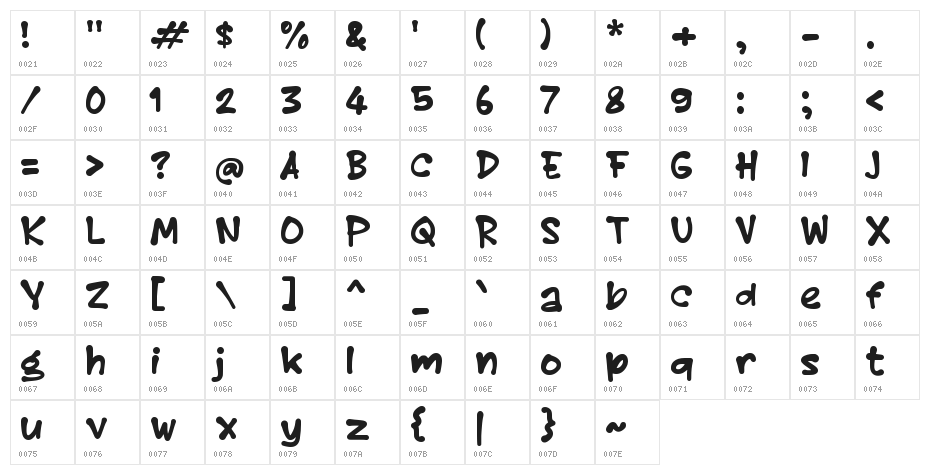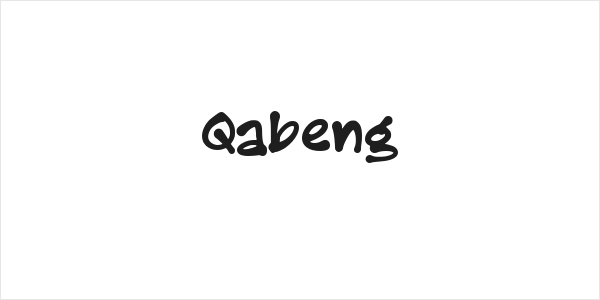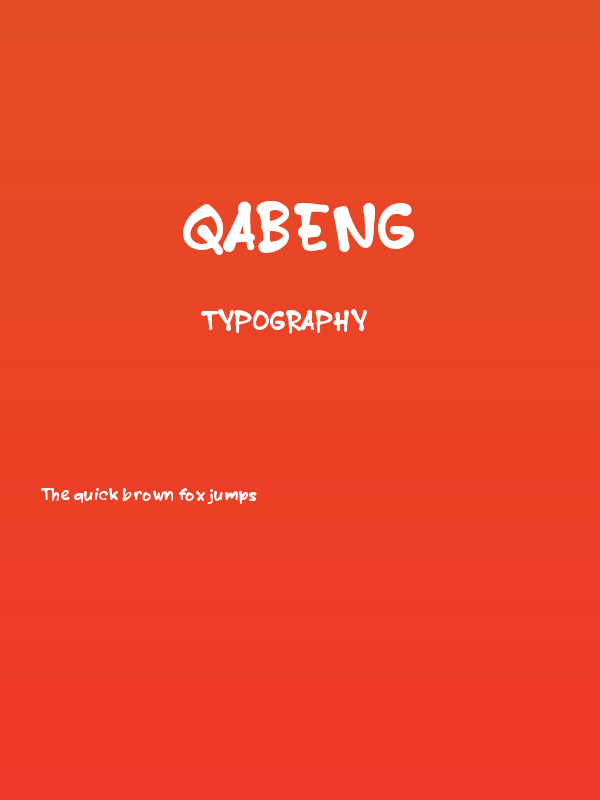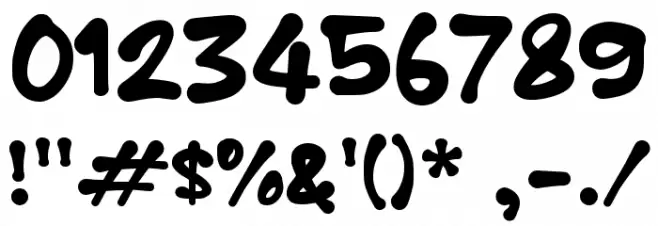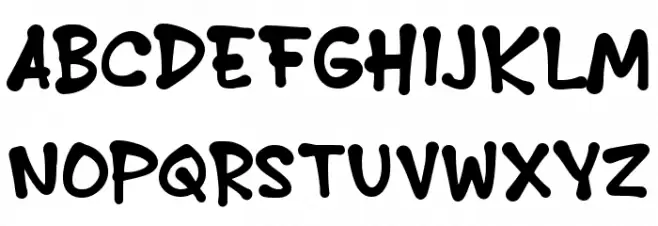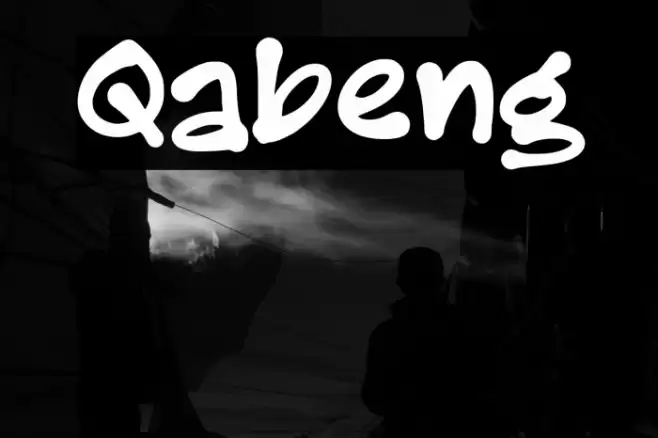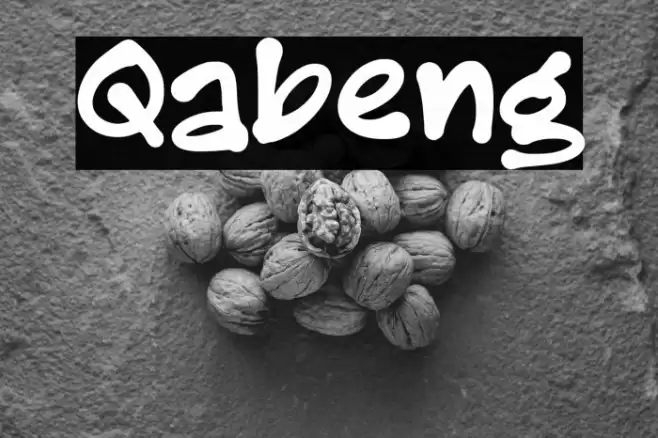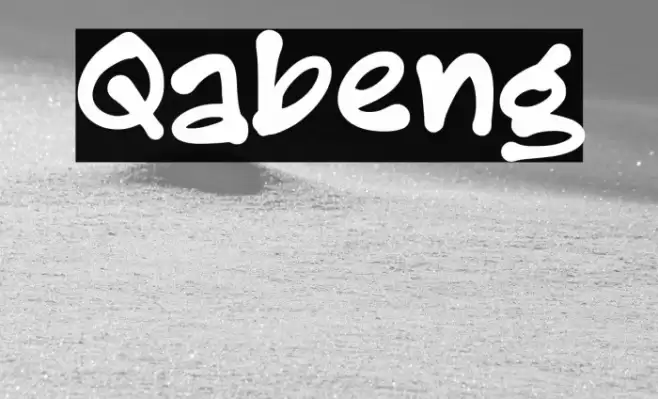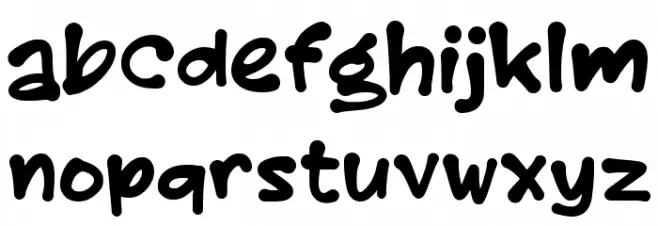
Qabeng Font
Qabeng Description
A playful, rounded, handwritten style font with a casual and friendly appearance.
| Overall Style | Casual, Playful, Friendly |
| Use Case | Children's materials, informal branding, greeting cards, posters. |